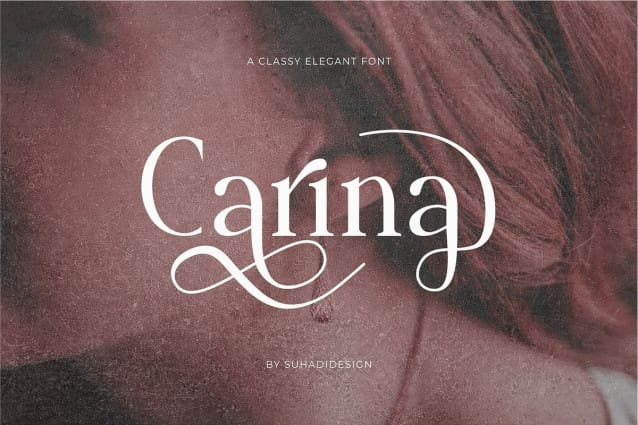
Carina Font
Carina Font, is an elegant, modern, classy serif font. is here to be one of the favorite fonts in the market. We have made this font look elegant, classy, ​​modern, new style, easy to read, stylish, attractive and easy to use. It is a good choice for magazine, newspaper, fashion, luxury design, beauty, feminine, brand name, branding and other projects. Carina font is here to enhance the quality of your design.